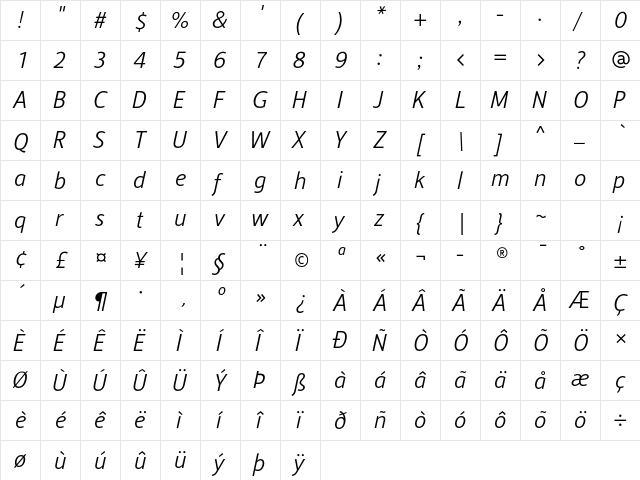
Alber Light Italic Font Preview
| Foundry | C.Dickinson |
| Designer | C.Dickinson |
Design Context for Alber Typeface
Alber offers clean, dependable letterforms without strong stylistic allegiance, making it a practical choice for designers who need flexibility. Its italic angle brings a sense of urgency and motion to the letterforms. Its slender proportions lend an understated elegance to any composition.
Pro Tip: Try Alber for annotation and caption copy alongside an upright companion — the contrast in angle creates a dynamic but ordered typographic system.